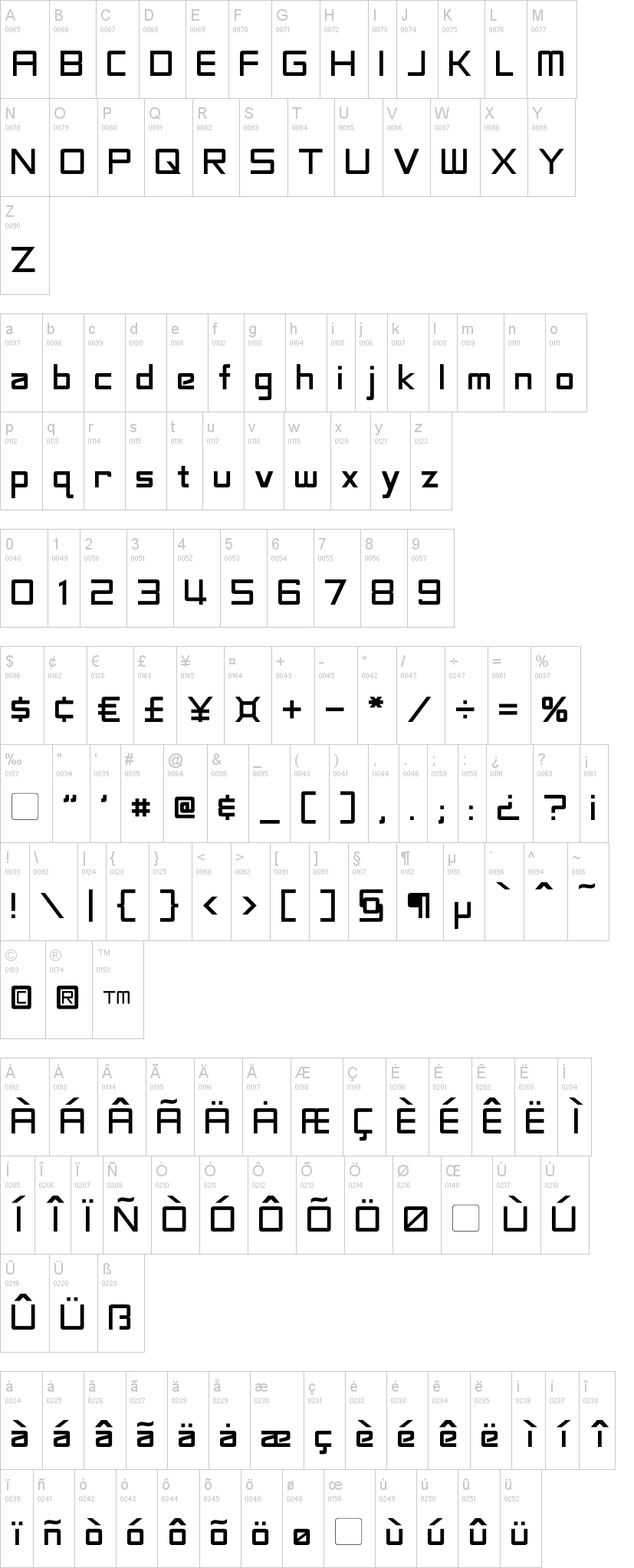
Шрифт LaBeouf
This simple techno-typeface is based on the subtitle logos found in Paramount's "Indiana Jones" movie series. Includes accent characters, euro, and extended punctuation. Includes bold and italic versions.